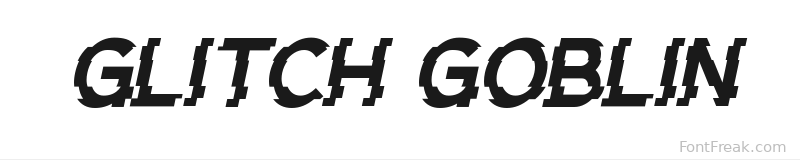
Glitch Goblin
Glitch Goblin is a striking display font designed by GGBot, perfect for those looking to infuse a contemporary twist into their design projects. This font falls into the decorative category, characterized by its unique glitch-inspired aesthetic that captures the essence of digital distortion. The strokes exhibit a medium weight with a distinctive contrast that enhances its visual appeal. The spacing is tight yet balanced, creating an engaging flow that draws the eye. The decorative elements evoke a playful yet edgy vibe, making it an ideal choice for modern creatives.
The best use cases for the Glitch Goblin font include movie posters, where its dynamic appearance can effectively convey themes of science fiction or horror. It’s also well-suited for music album covers, particularly in genres such as electronic or experimental, where a sense of innovation and unpredictability is essential. Small business owners in the tech or gaming industries will find this font particularly appealing for branding materials, including logos and promotional graphics. Additionally, it can enhance social media graphics, helping content creators stand out in a crowded digital landscape.
Targeting graphic designers, small business owners, and content creators, Glitch Goblin offers a fresh alternative to traditional typefaces, encouraging creativity and experimentation. Its unique style allows it to seamlessly integrate into a variety of projects, making it a versatile addition to any designer's toolkit.
In summary, the Glitch Goblin font free download presents an opportunity to elevate your designs with a bold, modern flair. Its distinctive glitch effects and playful character make it a standout choice for anyone looking to make a memorable impact in their visual communications.